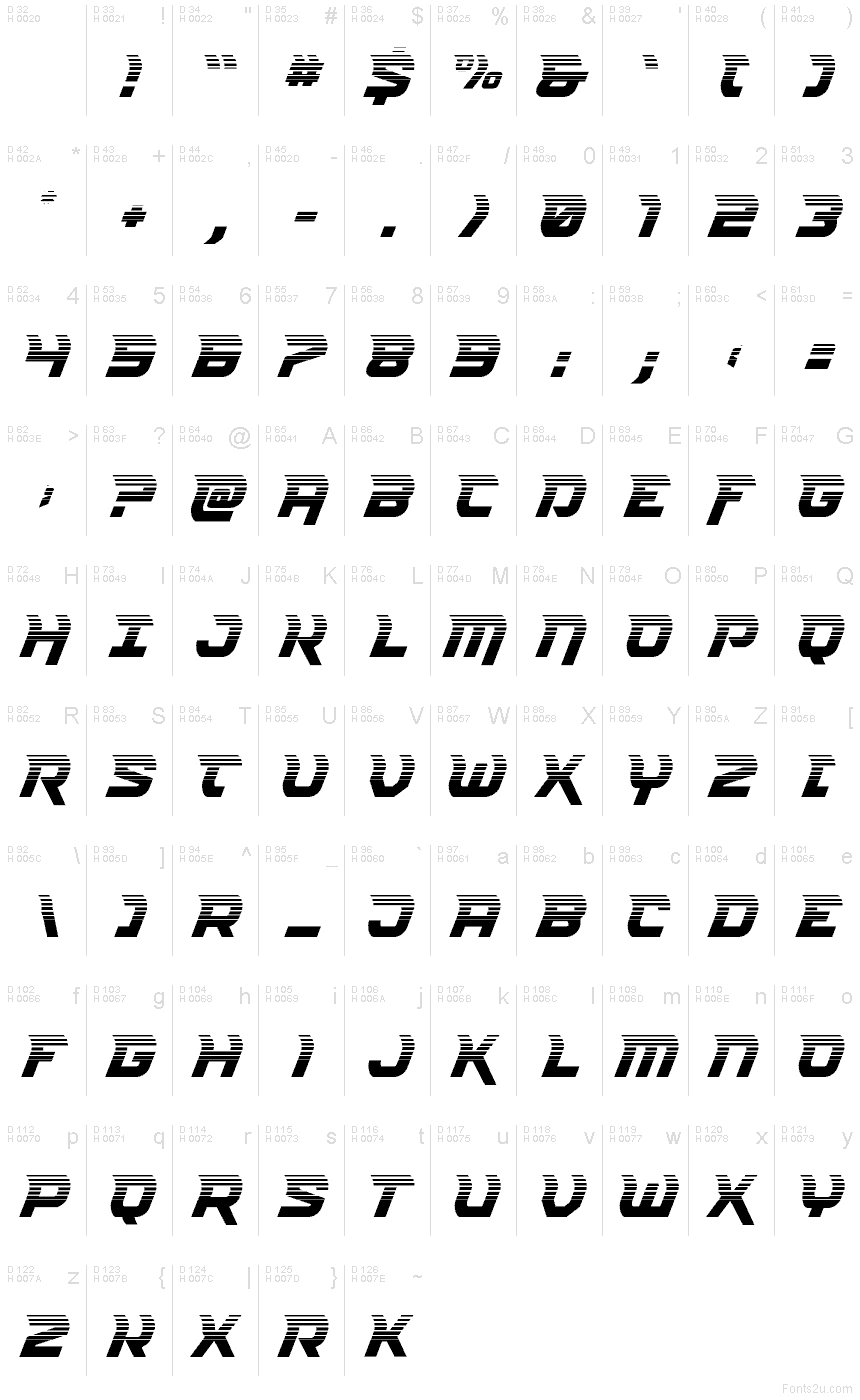
Renegent Halftone
Renegent Halftone font is a display typeface following non-standard paths with its futuristic and creative style. This Iconian Fonts design has a segmented geometric styling that’s paired with noticeable opposing colors. The characters are standard-sized, horizontally-oriented, and horizontally emphasized; almost all the visual aspects fall under either normal or extraordinary terms.
The display font’s style is particularly helpful in screen settings requiring strong headings or accent phrases. Renegent Halftone is free for designing titles for movie posters, techno music cover arts, video games keys or scenes, websites LEDs-styled texts, scientific presentations with contemporary influences, robotic movies trailer graphics intending to attract attention & other similar projects.